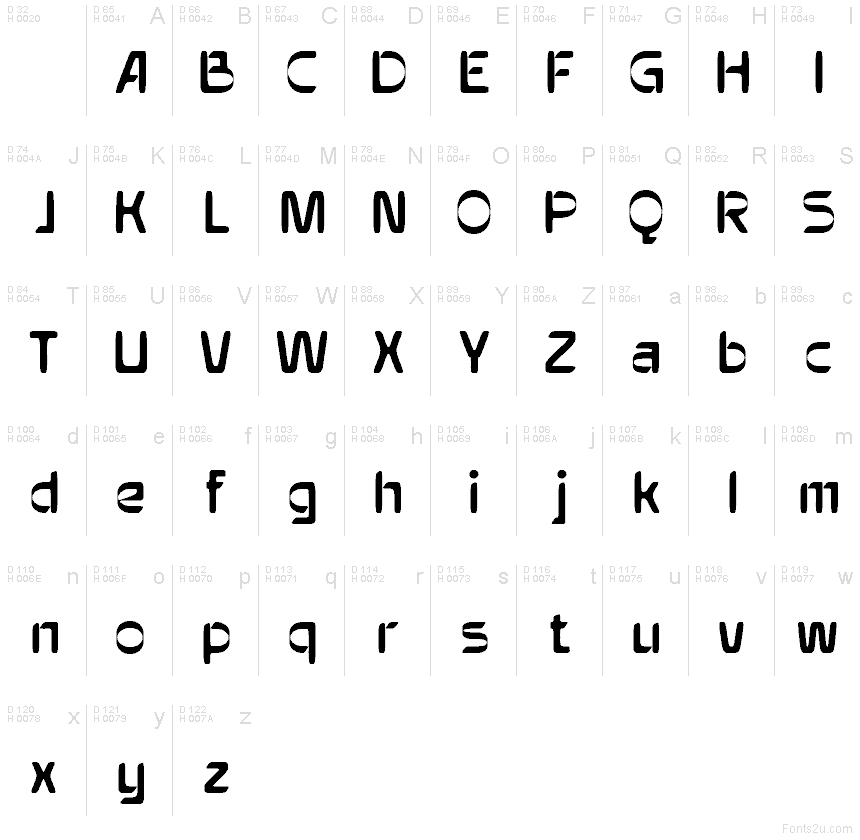
CSBelgiaDrawn-Regular Demo
CS Belgia Font by Craft Supply is a sleek display font that has been drawn and developed to have futuristic, distinct letters. The contemporary vibe in this geometric design results from its streamlined look and modernist touch thus offering a beautiful, timeless type style.
CS Belgia Drawn Demo